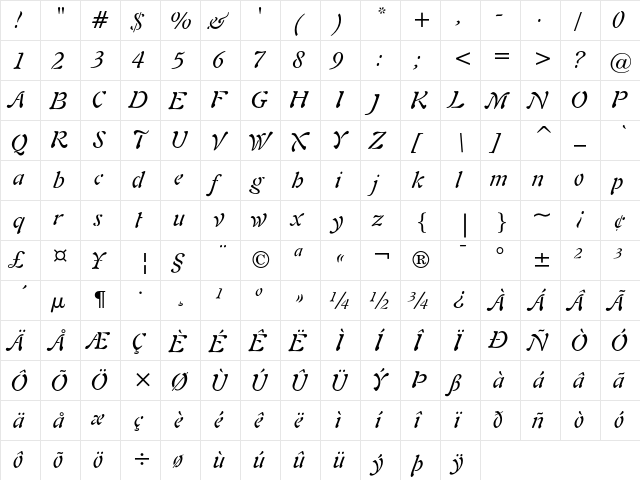
Freeform 721 Italic
Design Context for Freeform 721 Typeface
Freeform 721 is a composed and adaptable typeface that performs quietly and consistently across a wide range of design contexts. The dynamic lean of this cut emphasises speed and emphasis in any layout.
Pro Tip: Use Freeform 721 for emphasis, pull quotes, and subheadings where its slanted energy can add rhythm to the layout.